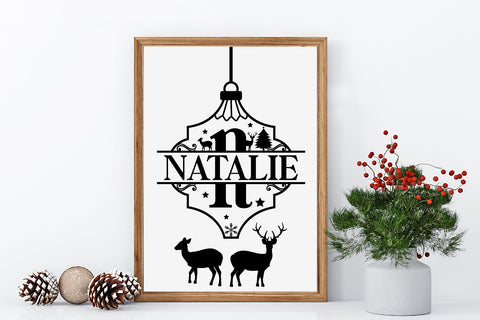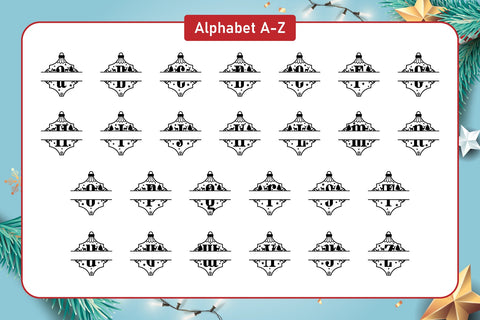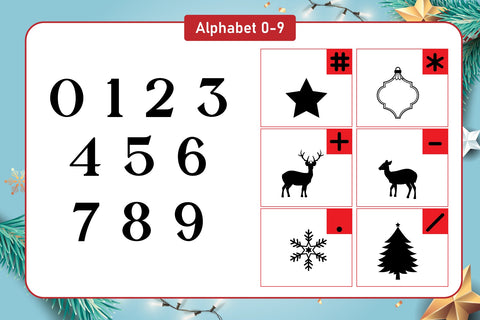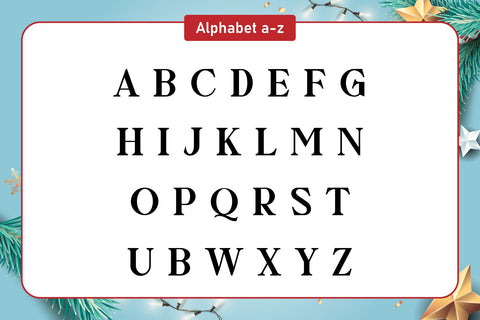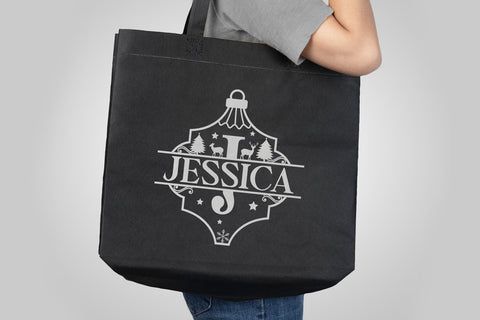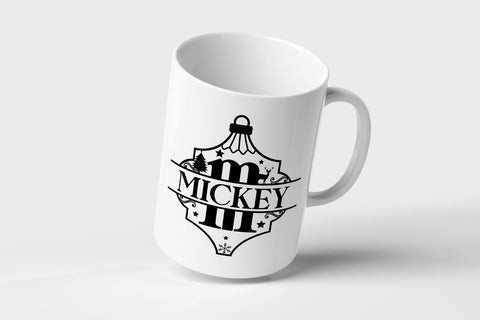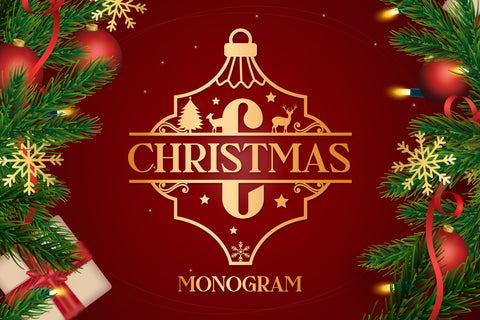
Christmas Monogram Decorative Fonts
Christmas Monogram is a decorative font with a fantastic look. the font that gives a feeling of the Christmas season. Fall in love with its authentic feel and use it to create gorgeous invitations, beautiful stationary art, shirts, crafts, farmhouse decor, SVG designs, craft projects, Holiday designs, and more. Add it now to your fonts library, and start creating spectacular designs!